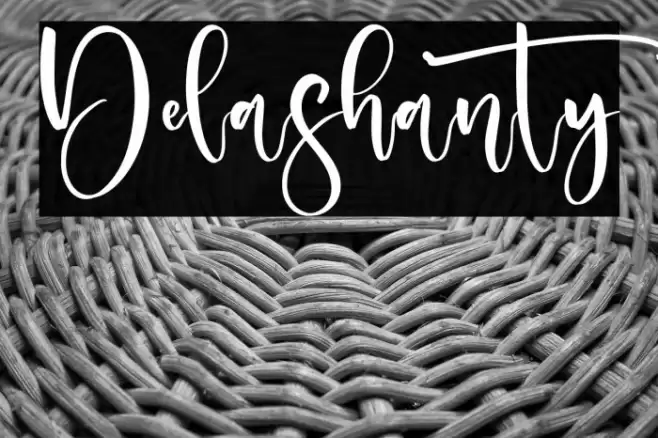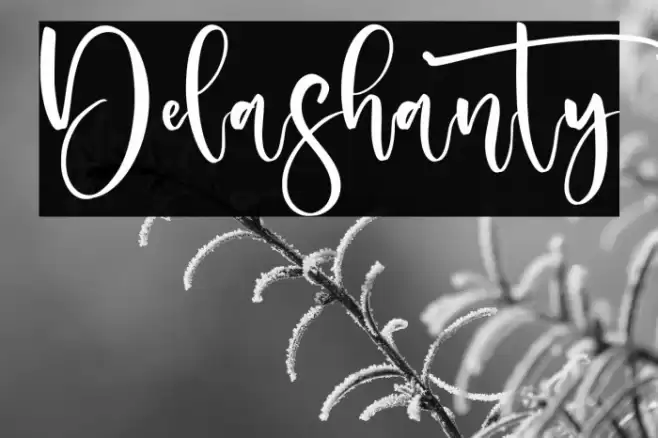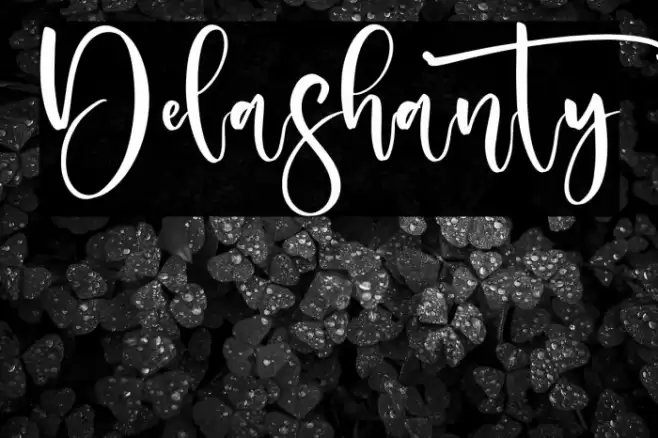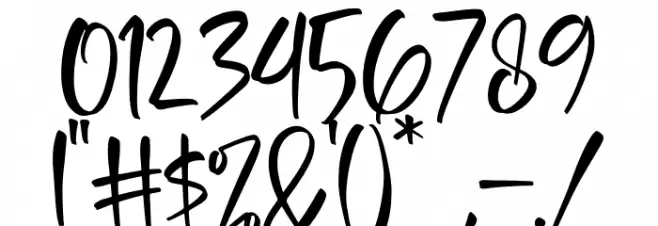
Delashanty Font
Delashanty Description
This font features a lively and expressive handwritten style, characterized by its fluid and dynamic strokes. The uppercase letters are bold and slightly slanted, giving a sense of movement and energy. The lowercase letters maintain a consistent flow, with some characters featuring unique loops and swirls that add to its playful nature. The numerals are equally expressive, with varying heights and angles that complement the overall style. Special characters are creatively designed, maintaining the font's whimsical and artistic flair. This font is perfect for projects that require a personal and artistic touch.
A lively and expressive handwritten font with dynamic strokes and playful loops from Uncategorized fonts.